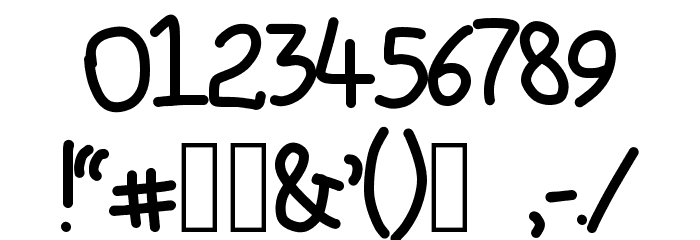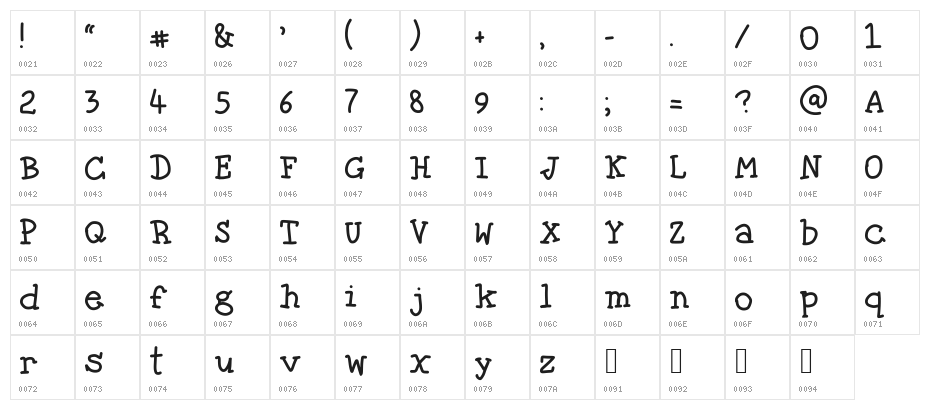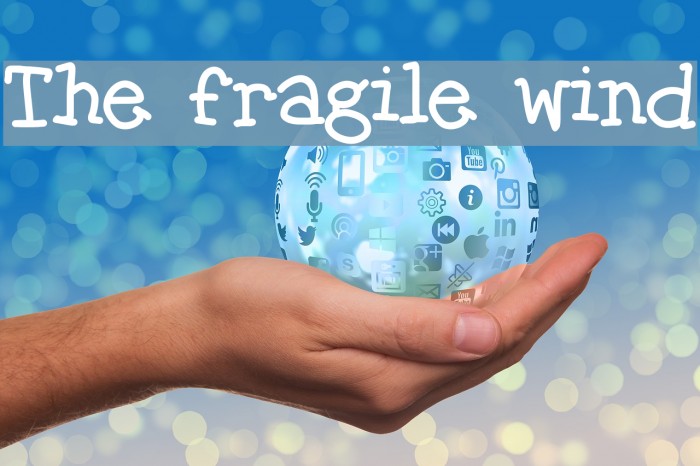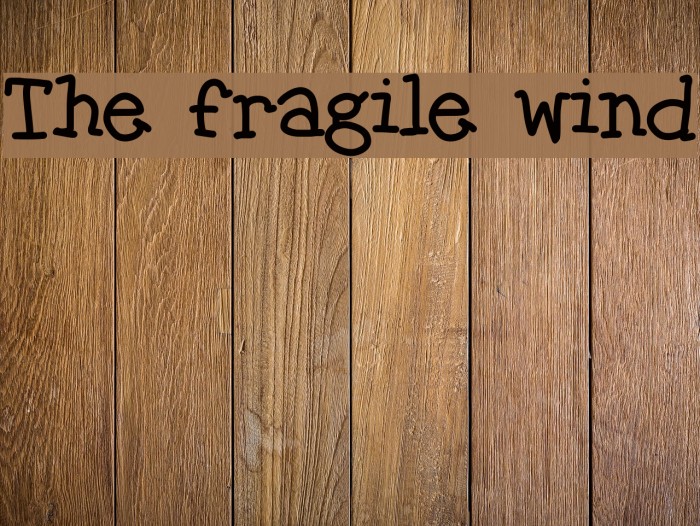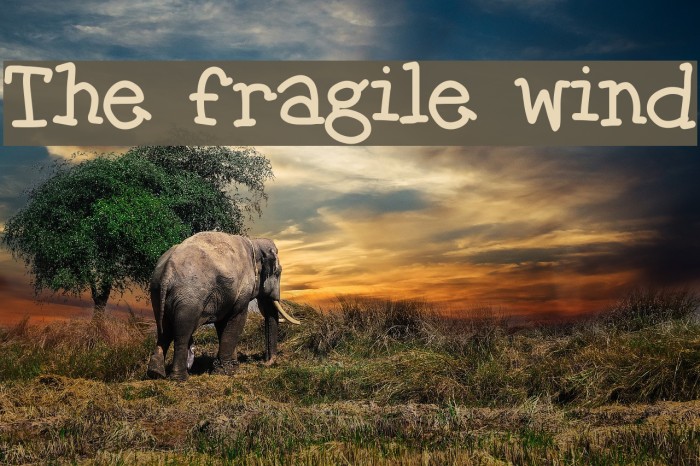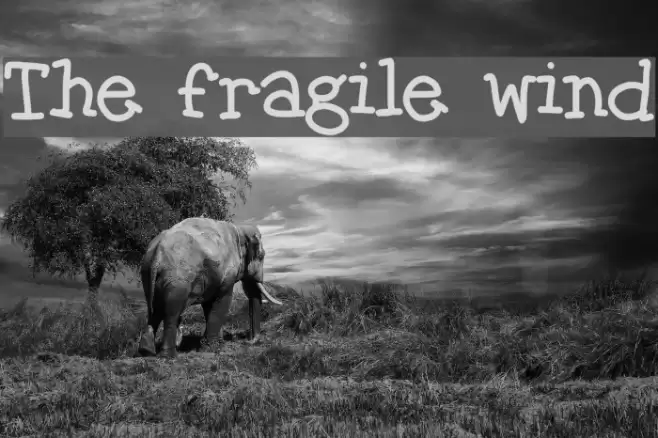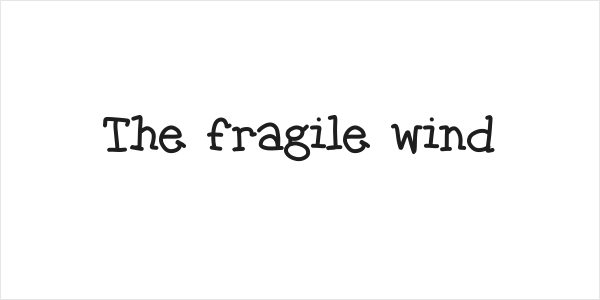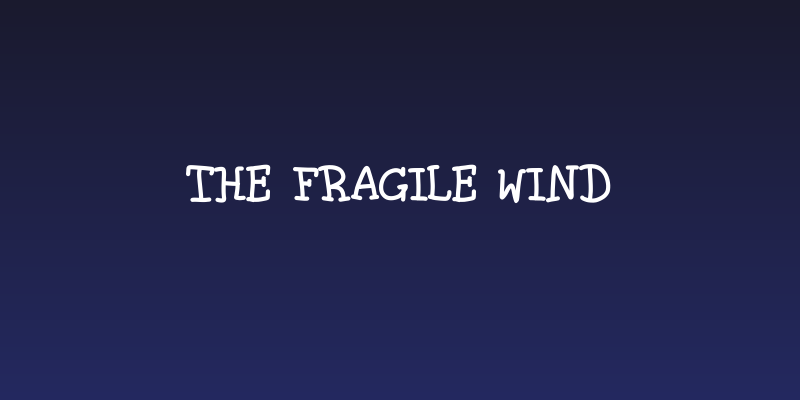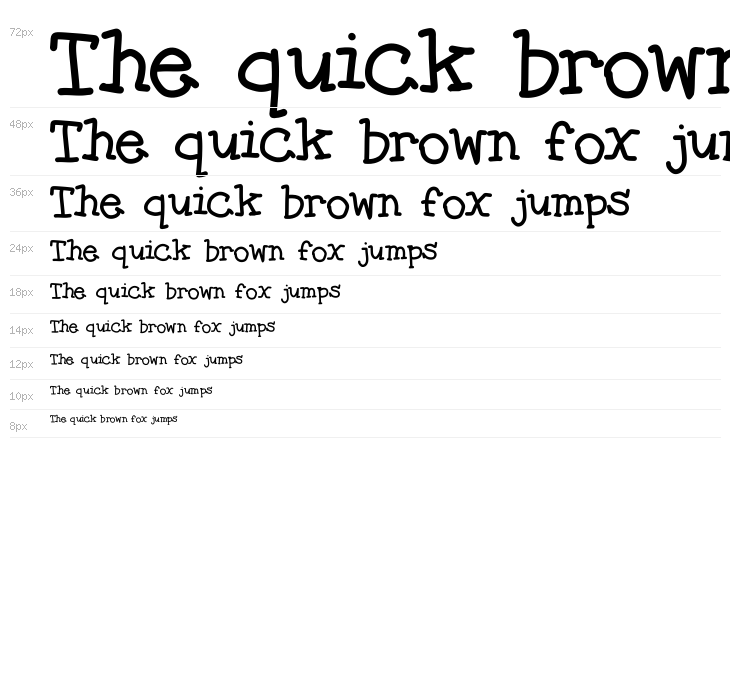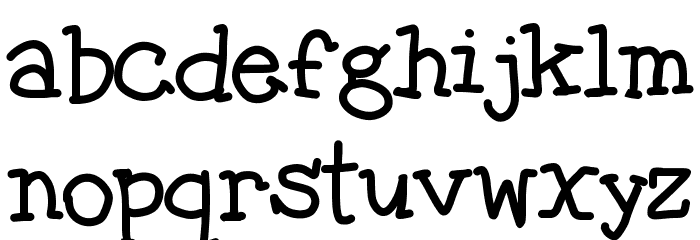
The fragile wind Font
The fragile wind Description
This playful and whimsical font features a hand-drawn, casual style with a slightly irregular baseline, giving it a lively and informal appearance. The characters are bold and rounded, with a consistent stroke width that maintains readability while adding a touch of fun. The uppercase letters are slightly larger than the lowercase, and the numerals are clear and distinct. Special characters are included, maintaining the same playful aesthetic. This font is perfect for projects that require a friendly and approachable look.
| Proposed Projects | Ideal for children's books, greeting cards, playful branding, and casual invitations. |